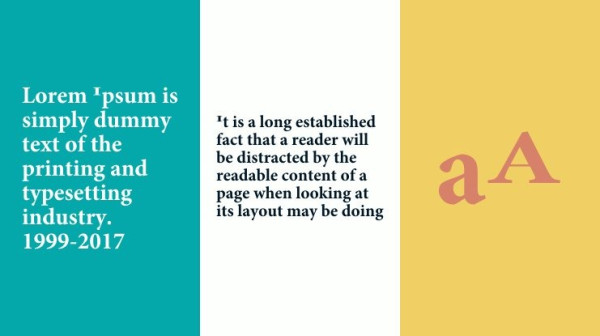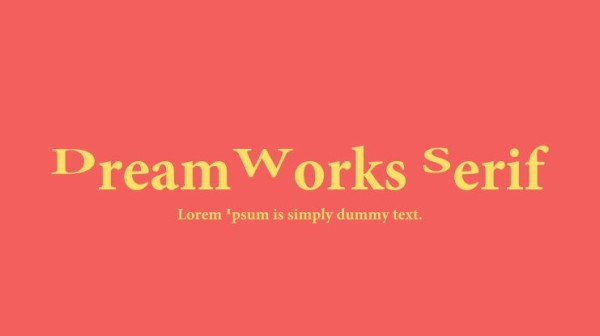
DreamWorks Font, a Serif font made by PPCS With modifiyed Minion Glyphs. Suitable for any design needs : logo, branding, modern advertising design, logos, poster quote, book / cover Title, editorial design, website / blog, card, t-shirts,…
DreamWorks Font
| Designer Name: | Robert Slimbach |
| Classification: | Serif Fonts |